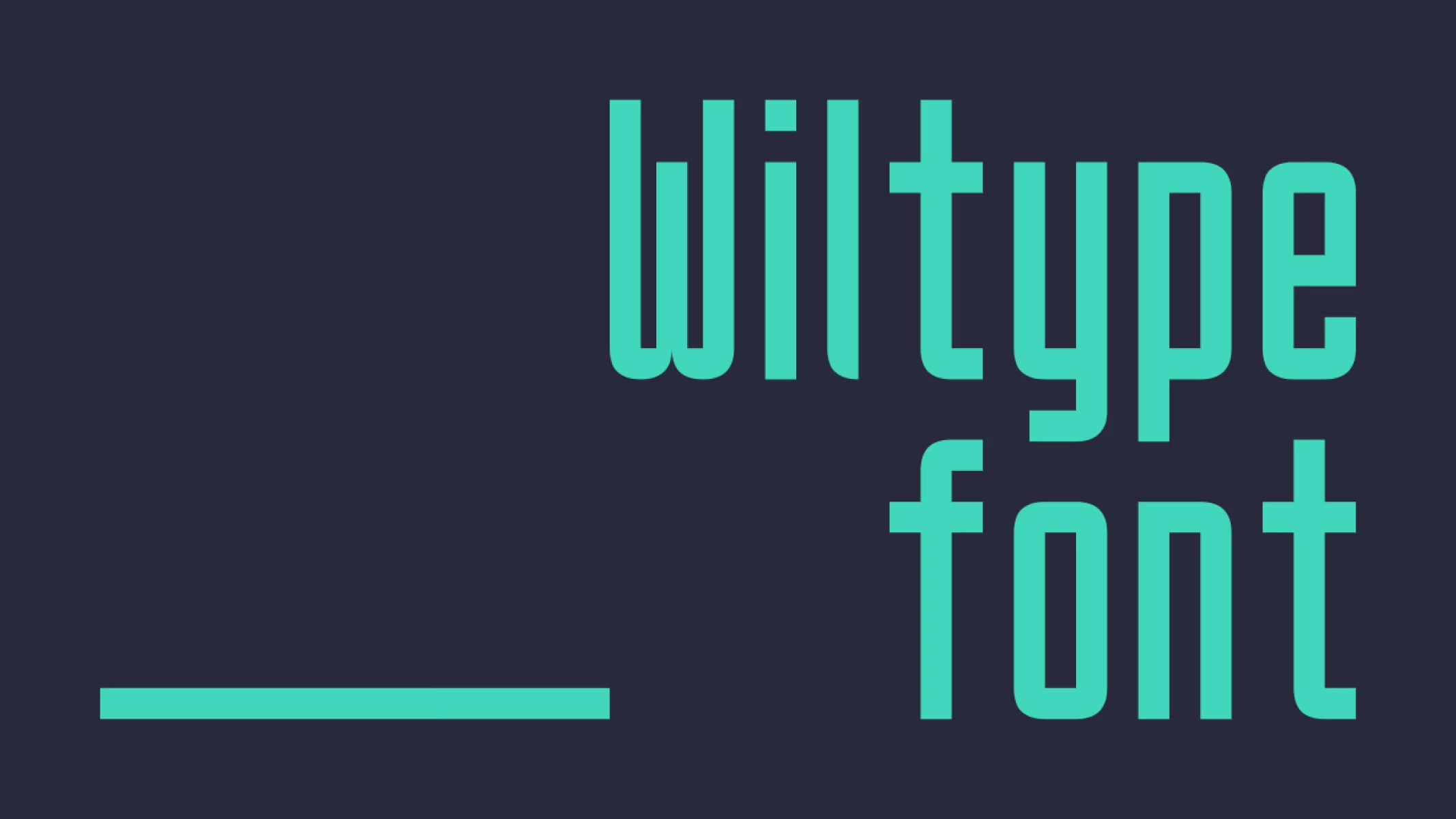
Wiltype Font Free
Wiltype Font Free brings a balanced structure and contemporary look, making it suitable for both digital and print design. Wiltype is a narrow, techno-inspired display typeface with a clean geometric build and a slightly futuristic tone. Its tall letterforms, squared curves, rounded corners, and modular strokes give it a compact, rhythmic presence.
The design works well for posters, headlines, game graphics, tech branding, album covers, social media visuals, and other display settings that need a sharp, modern voice without feeling overly mechanical.